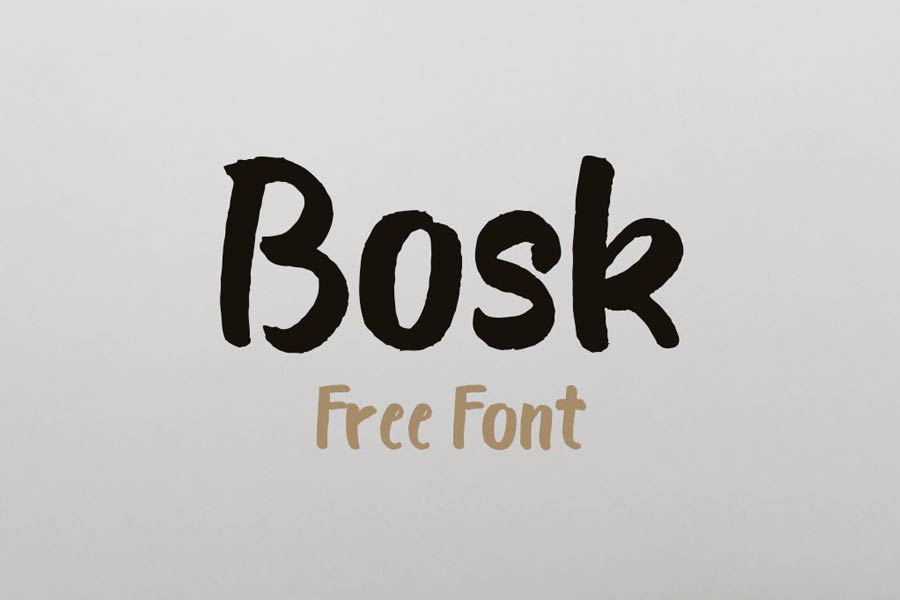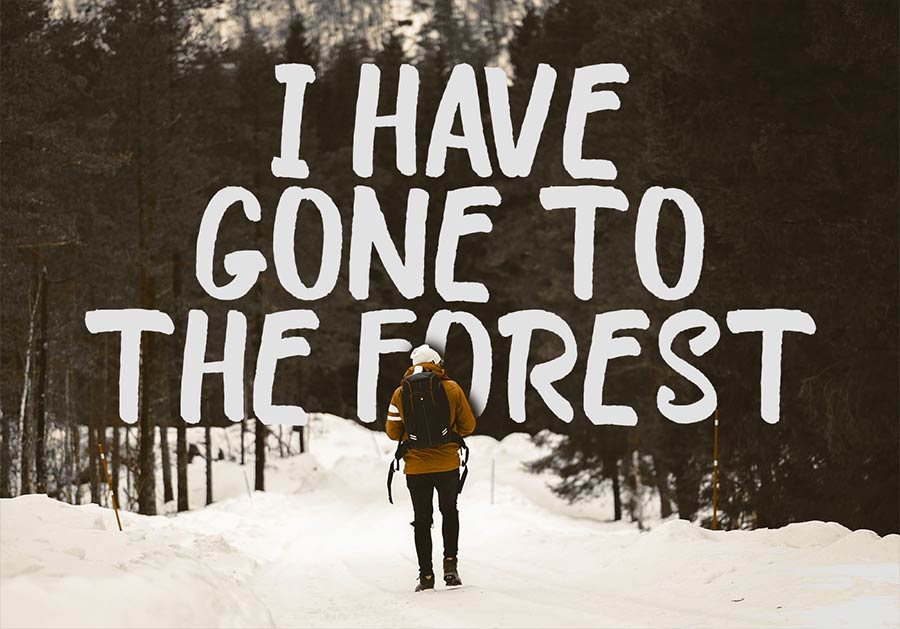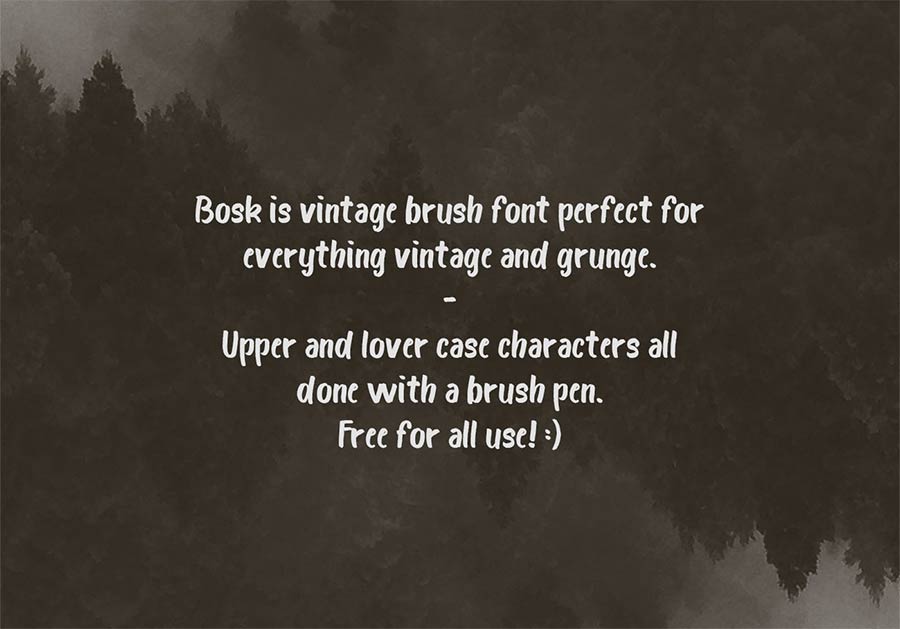
Bosk is a free brush font perfect for everything vintage and grunge. The font was handwritten with a brush font and it comes with uppercases, lowercases, numbers and symbols. Bosk comes with 400+ characters and supports multiple languages including Latin, Greek, Cyrillic and more.